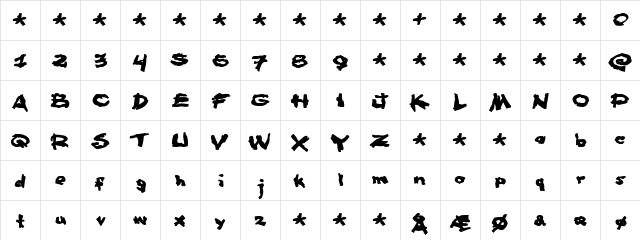
Famous fromage Regular
Design Context for Famous fromage Typeface
Famous fromage is a composed and adaptable typeface that performs quietly and consistently across a wide range of design contexts.